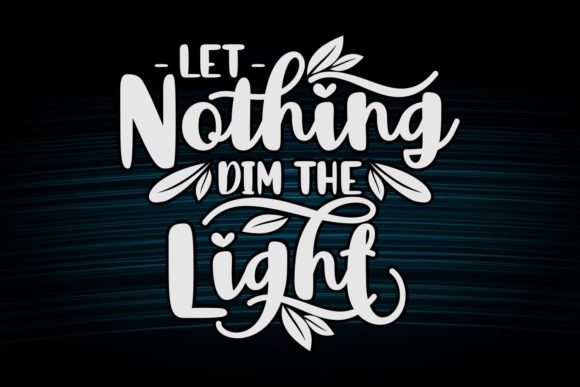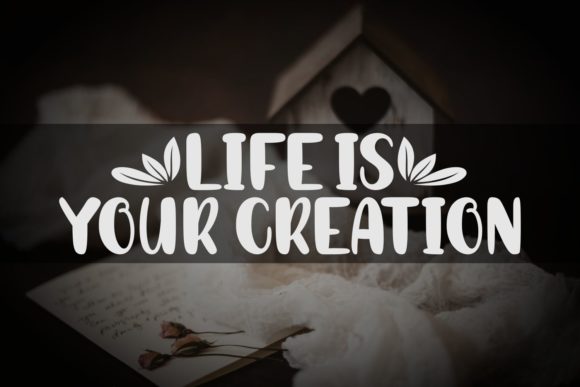
Live in Wonder Font
db-ku.com - Script & Handwritten -- Live In Wonder simplifies elegance into one truly outstanding handwritten font. This font will look outstanding in any context, whether it’s being used on busy backgrounds or as a standalone headline!